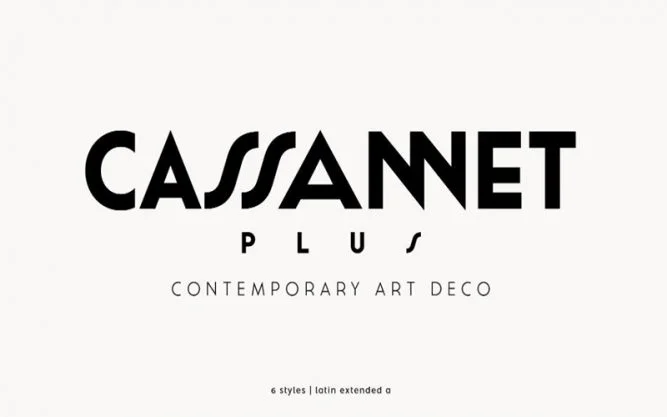
Cassannet Font is good for making creative displays and it has the art-deco touch. It’s a lovely and unique sans-serif typeface, allowing you to make each word look completely stylish!
It suits best for modern designs, logos, headlines, banners, templates, etc. A Spanish foundry the Atipo took charge of designing it for the first time in September 2016.
It has an excellent texture that has been professionally designed by the designer. The whole structure retains its solid shape with sharp corners.
So, it will definitely give a sharp look. Another great aspect is that you can easily use its stylish design. Because its structure is made in a stylish way.
| Font Name: | Cassannet Font |
| Style: | Display, Sans-serif, Typeface |
| Font Designer: | Atipo |
This clean font has come in six different styles including thin, light, regular, bold, black, and ultra as well. Every letter has more than 170 characters with several language support.
This fine-quality typeface is perfect for all kinds of tasks. Such as book covers, long text paragraphs, news headlines, posters, branding, company logos, newspapers, game development, etc.